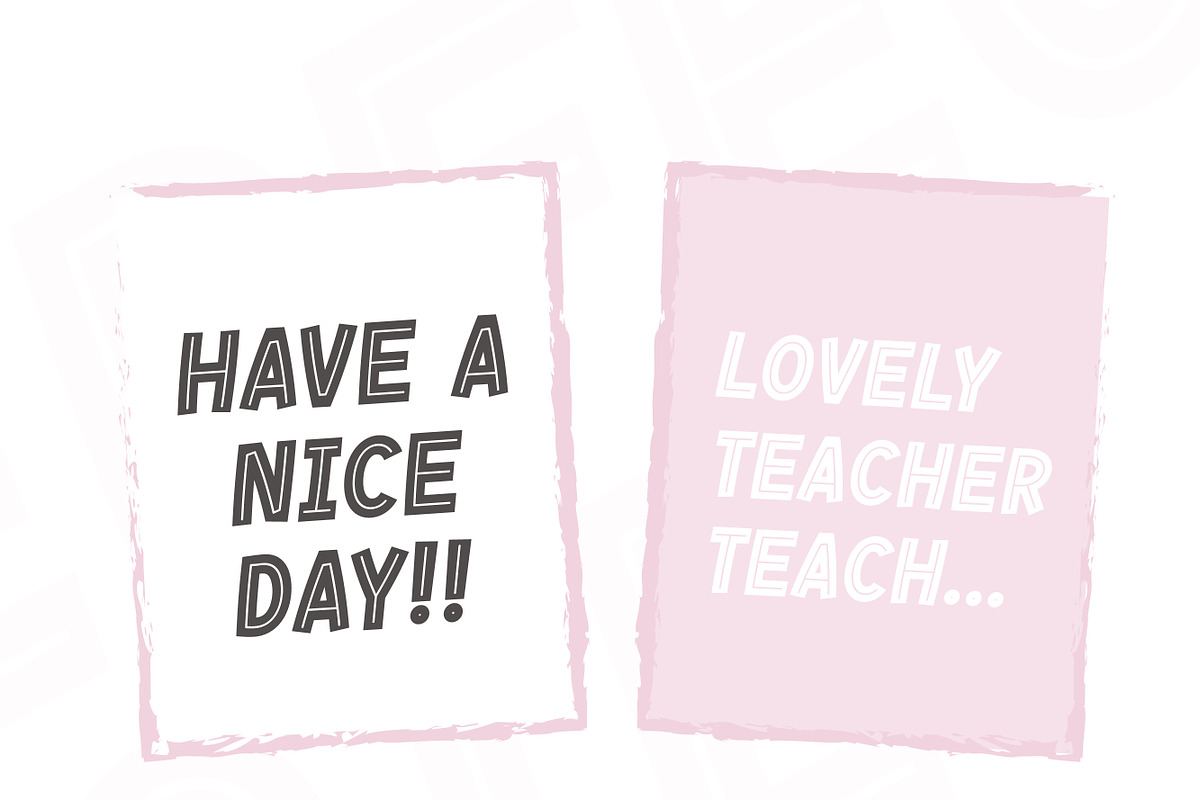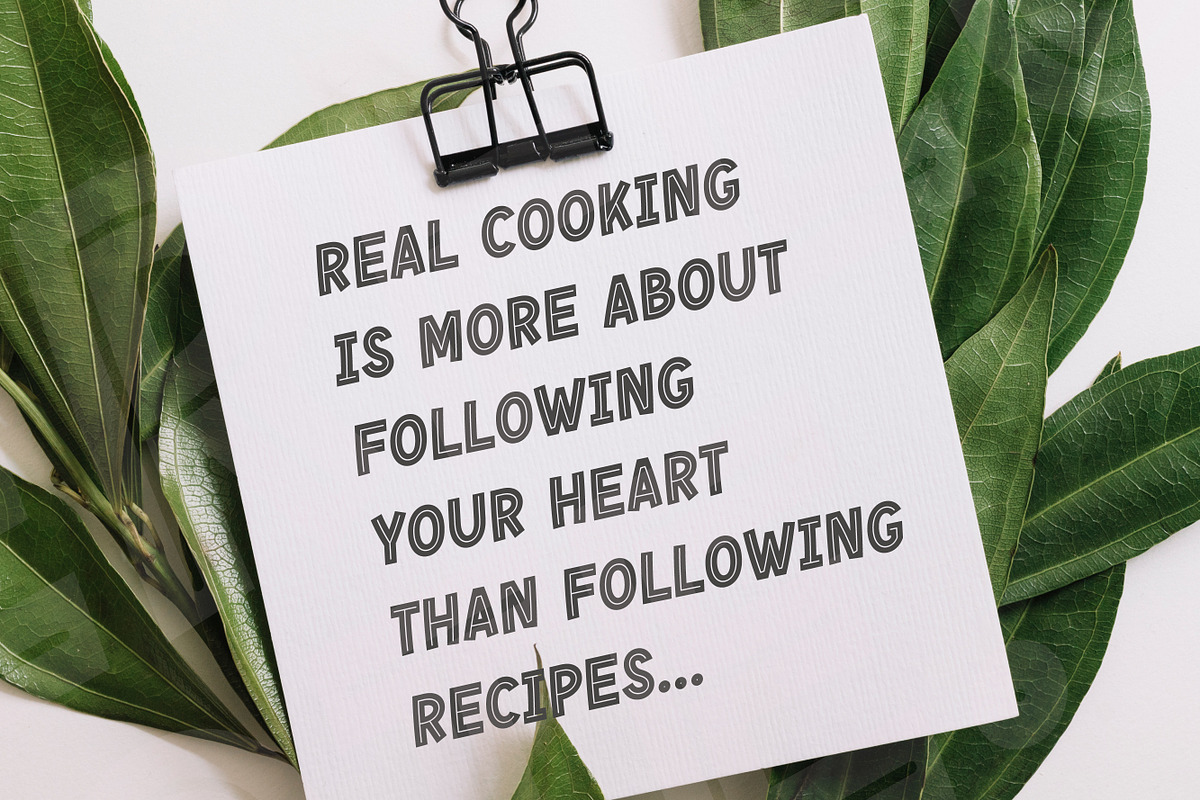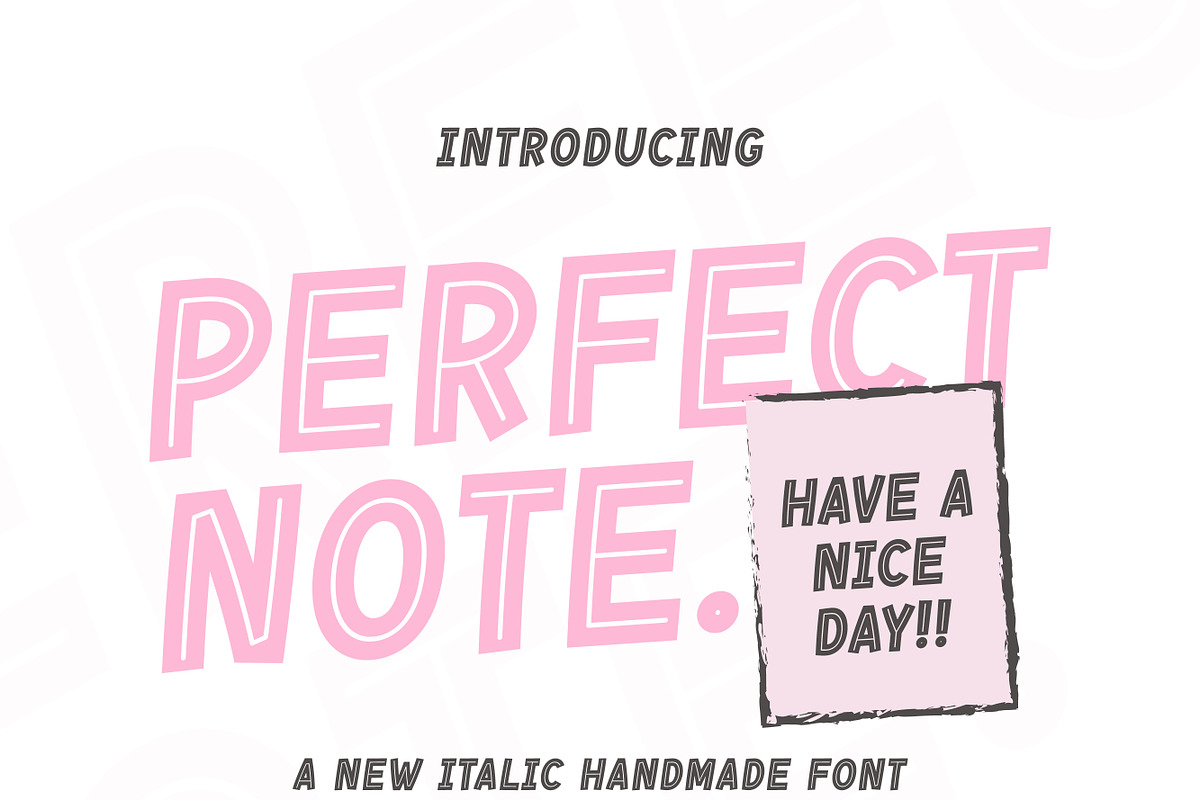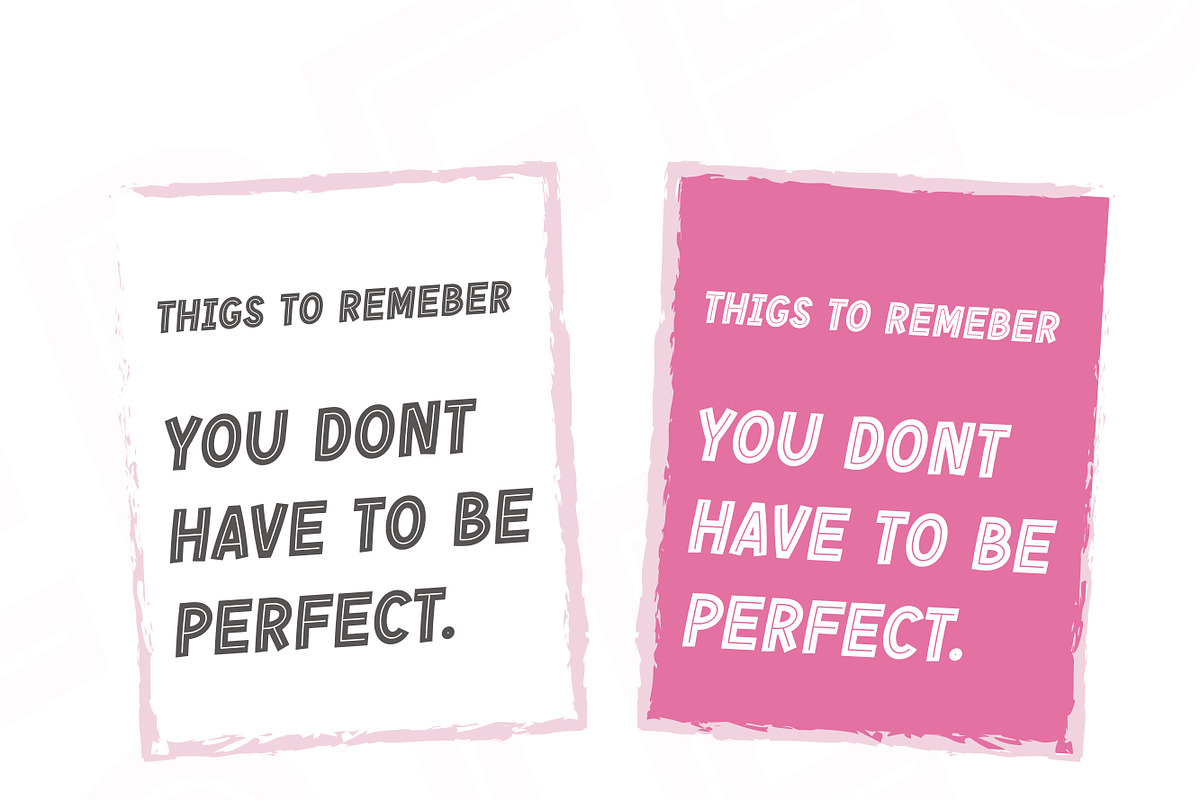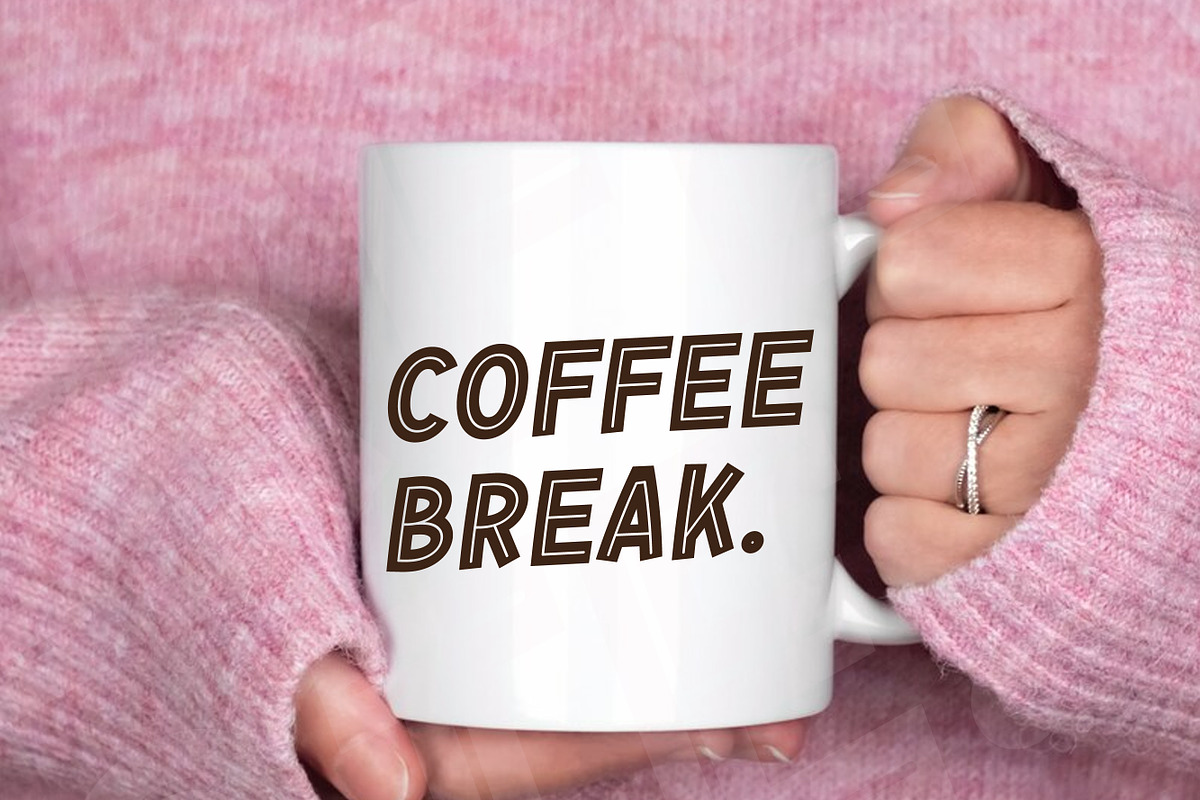
Perfect Note - Italic Handmade font
Perfect Note is a lovely and playful handwritten font. It adds a touch of charm to your designs. It is the best choice for creating eye catching logos, for greeting cards, wall art, branding and quotes.